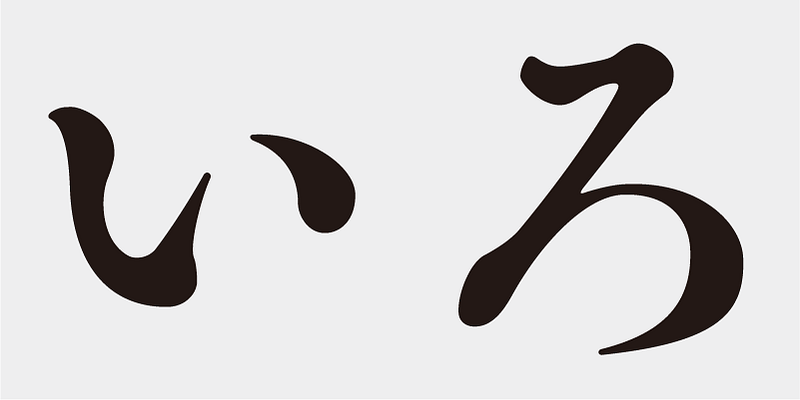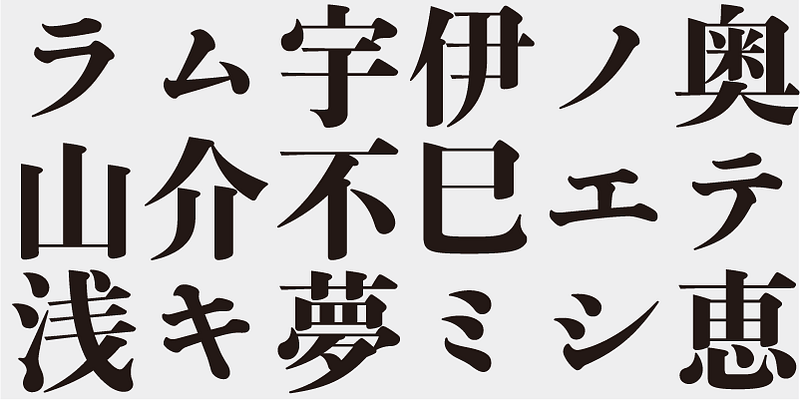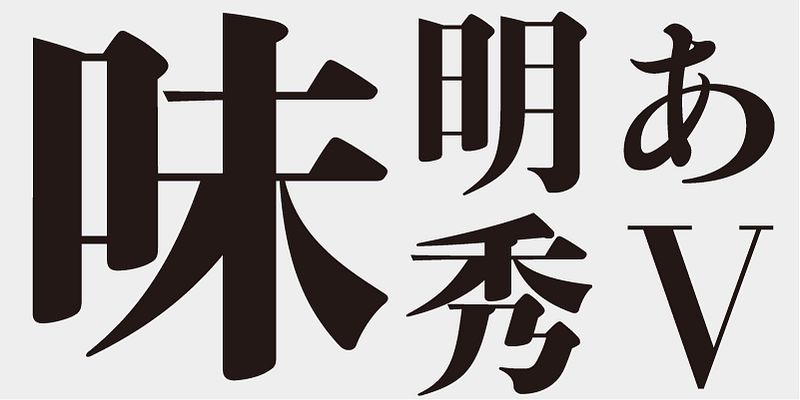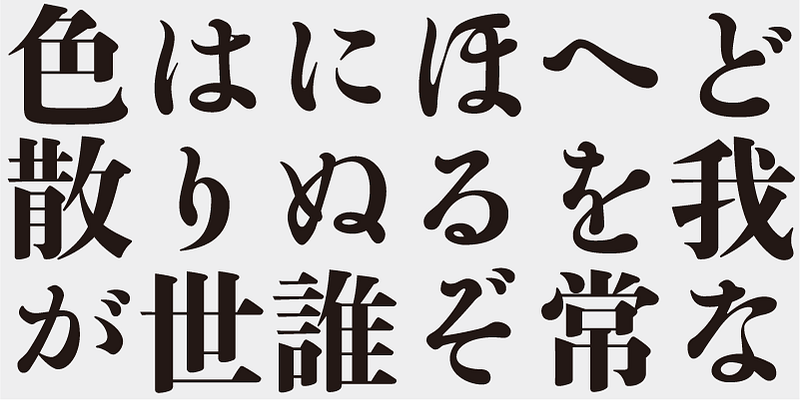
Although Ajimin has the flavor of hot metal type, it is not intended to be a revival, but a new typeface for display purposes. Like Bodoni, its vertical strokes are clear and heavy and its horizontal strokes are precise and thin. Its elements possess strength and stability.
This typeface is designed to be used in larger type sizes (for posters, for example), although it’s legible in smaller sizes. As the type size increases, the elegance of each stroke element becomes more visible.
Like “Tsukiji-tai”, “Shuei-tai” is one of the most influential typeface styles in the age of hot metal type. Produced by the printing house Shue-sha, later merged with another printing house to form Dainippon Printing, one reason for its popularity may be its idiosyncratic calligraphic style. This typeface design uses three different kana styles from Shuei-tai’s type samples.
Ajimin Syu V/EB is a revival typeface based on type samples from old print material. I consider the typeface design to be based on Shuei 3-go. The character “V” in the font name stands for “Vintage”.
Ajimin
Ajimin has the flavor of hot metal type and, like Bodoni, its vertical strokes are clear and heavy and its horizontal strokes are precise and thin. Its elements possess strength and stability. Ajimin is a unique Mincho-style display typeface. Ajimin Modern’s elements are more sharply designed, but that sharpness is balanced by the richness and elegance of the design. Ajimin’s biggest feature is its 10 kana variations, ranging from running-hand-like designs, to revivals of designs from the age of hot metal type, to modern style kana. These variations make Ajimin useful for a wide range of purposes.